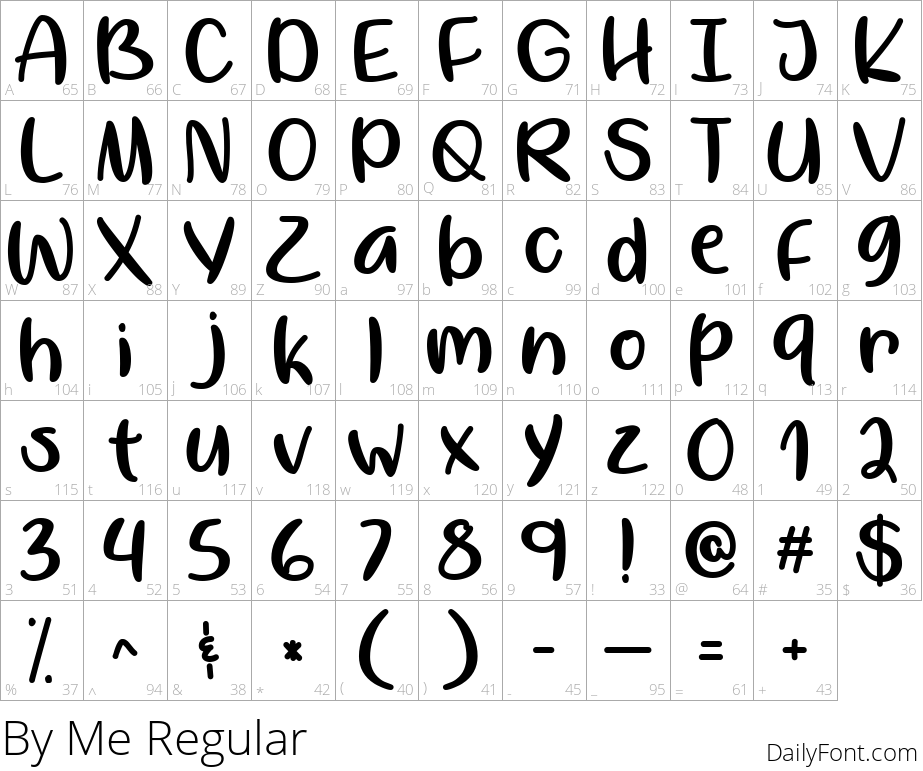
By Me Regular
By Me Regular is a charming handwritten font created by Misti's Fonts that exudes casual elegance and warmth. This typeface features a unique blend of smooth, flowing lines and varying stroke widths, creating a natural and personal touch perfect for a variety of design needs. Each letter in By Me Regular maintains a consistent height, providing a balanced and harmonious look across words and sentences.
The uppercase letters are bold and expressive, with slightly exaggerated curves and whimsical loops that draw attention without overpowering the viewer. This makes them particularly well-suited for headings, logos, and other display purposes where a bit of flair is desirable. On the other hand, the lowercase characters carry a subtler, more intimate feel, making them ideal for body text or handwritten notes where readability and a personal touch are key.
Moreover, By Me Regular is versatile and works beautifully in both digital and print formats. The numbers and punctuation marks included in the font maintain the same handwritten aesthetic, ensuring a cohesive look throughout any project. Whether you're working on wedding invitations, greeting cards, or branding elements, this font offers an engaging yet relaxed vibe that can elevate the visual appeal of your work.
Ideal for designers seeking a friendly and approachable typeface, By Me Regular stands out with its distinctive handwritten charm, perfect for adding a touch of personality and warmth to your creative projects.